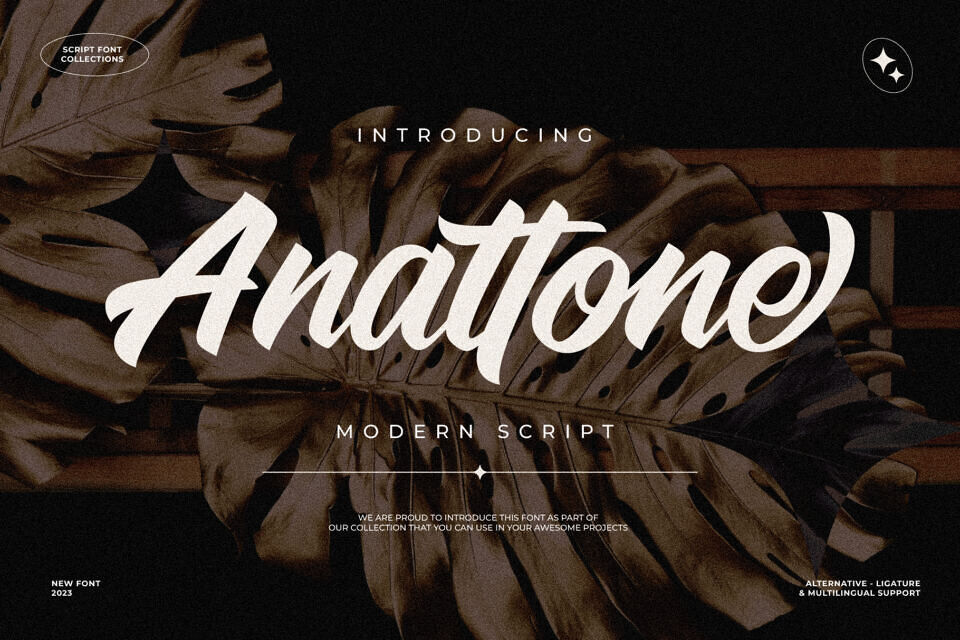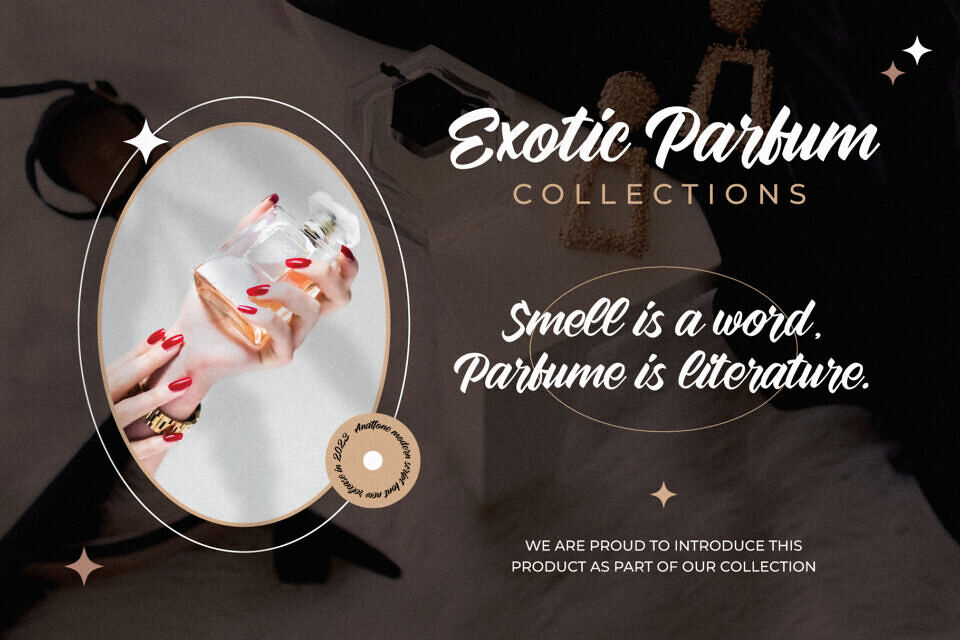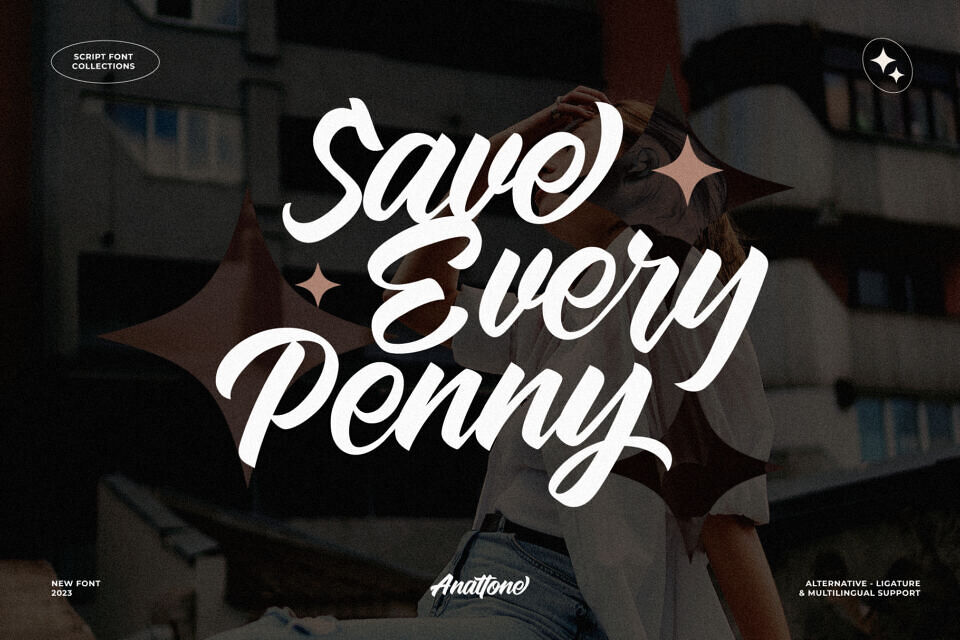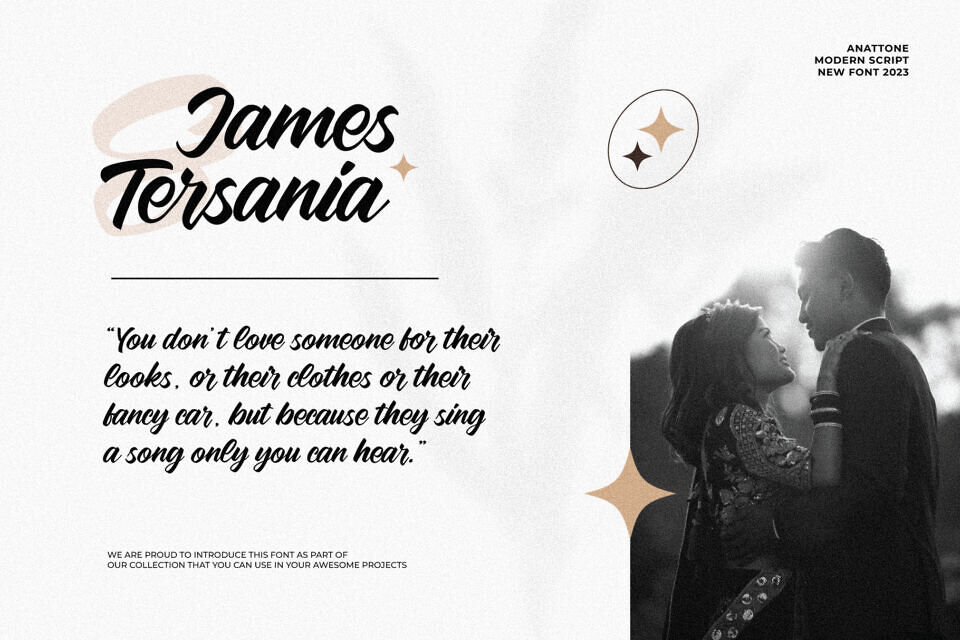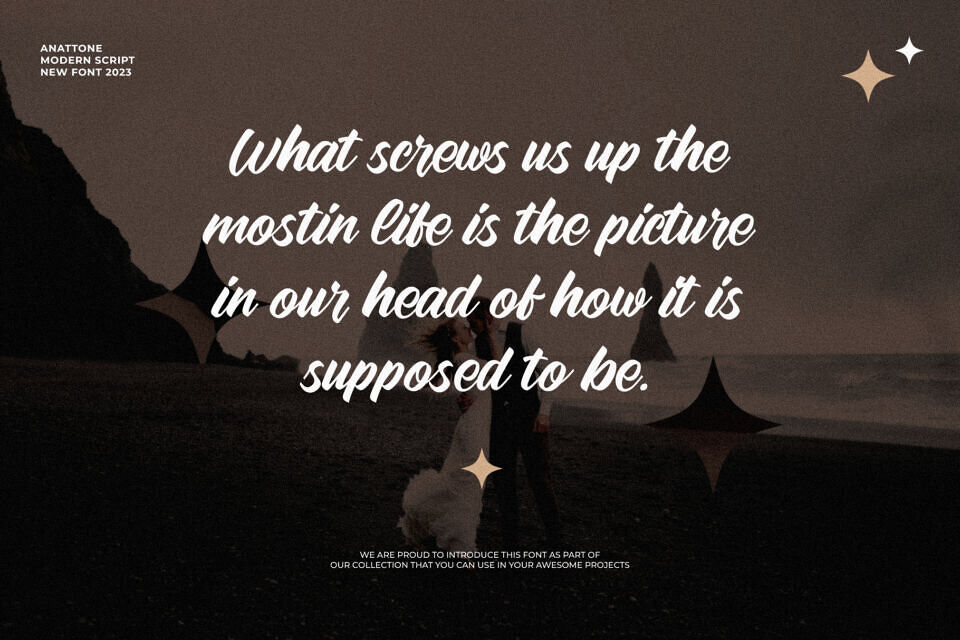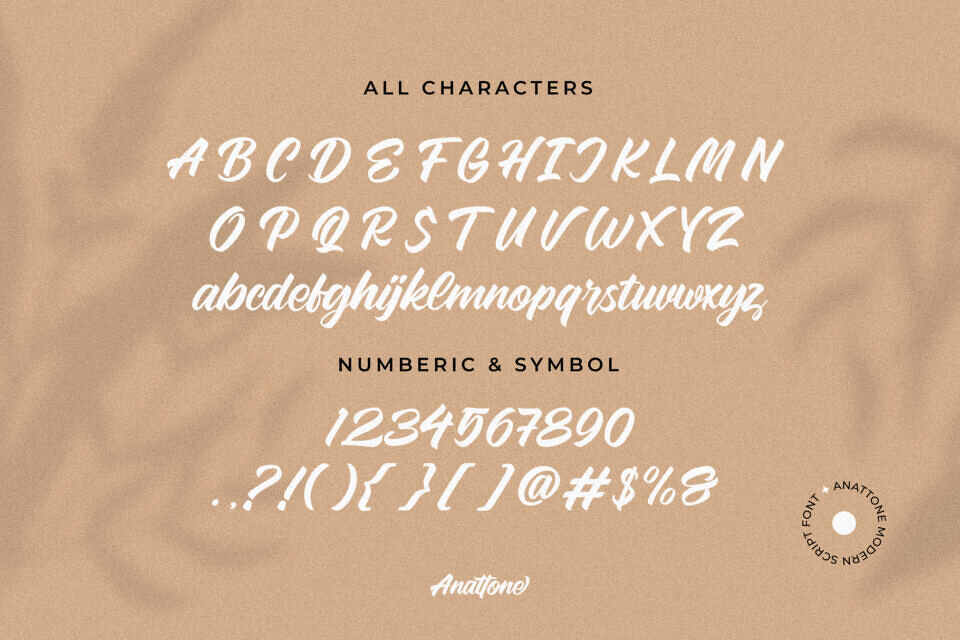
Anattone Font
Introducing Anattone, a modern captivating and versatile script font designed to add a touch of elegance and modernity to any project. Whether you’re designing for the fashion industry, food industry, or various celebratory occasions like weddings, birthdays, or engagements, this font is your perfect companion.
With its stylish and contemporary script style, Anattone Modern Script Font effortlessly captures attention and elevates your designs to new heights.